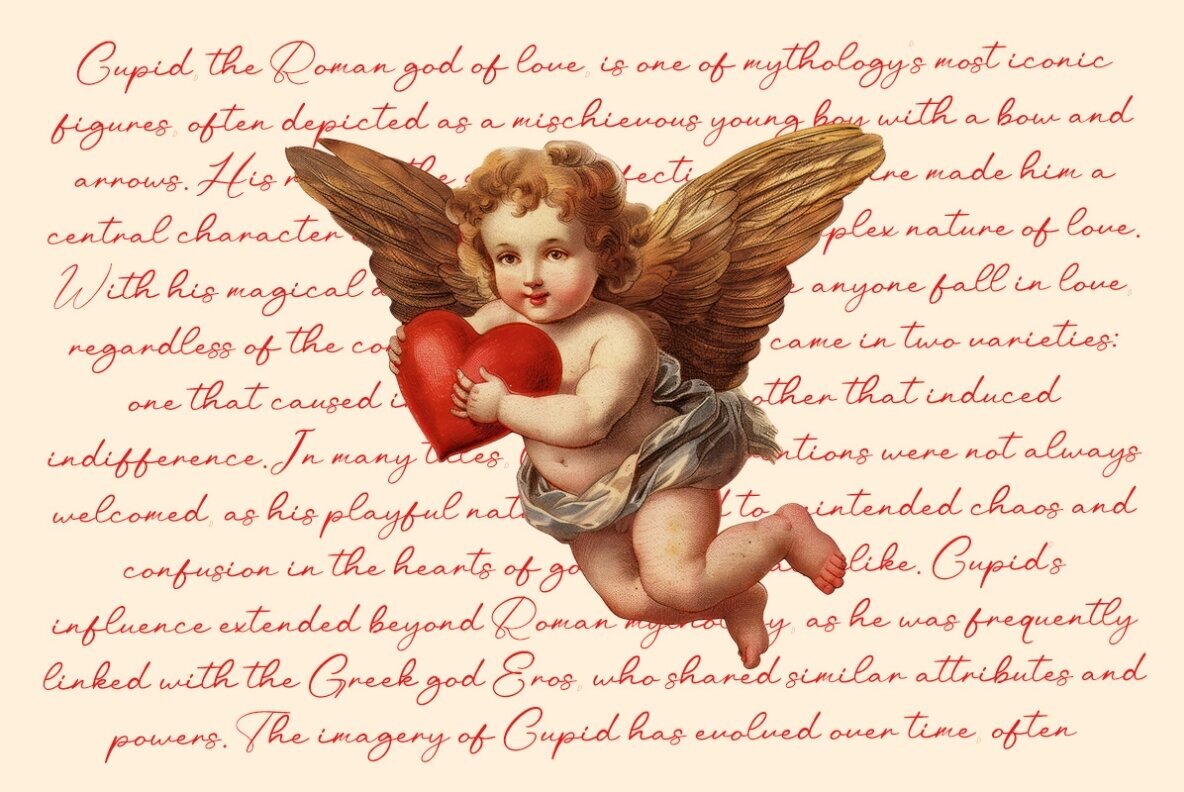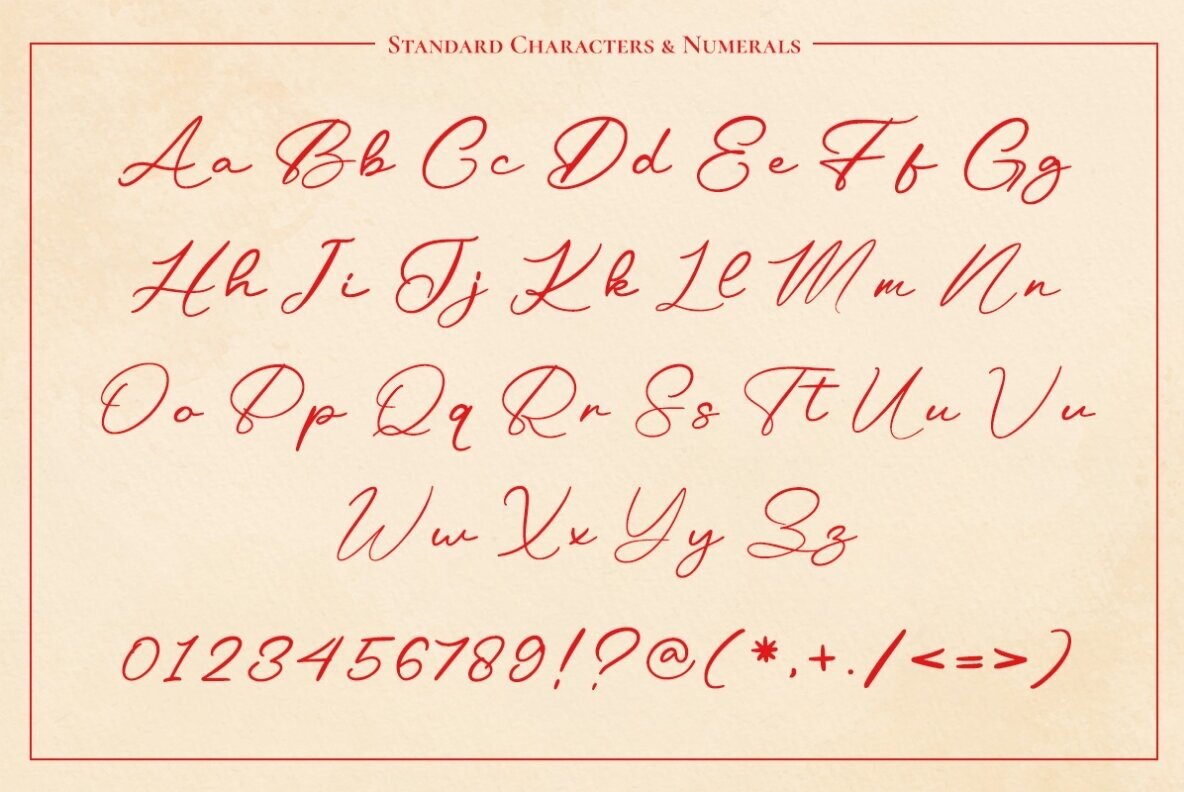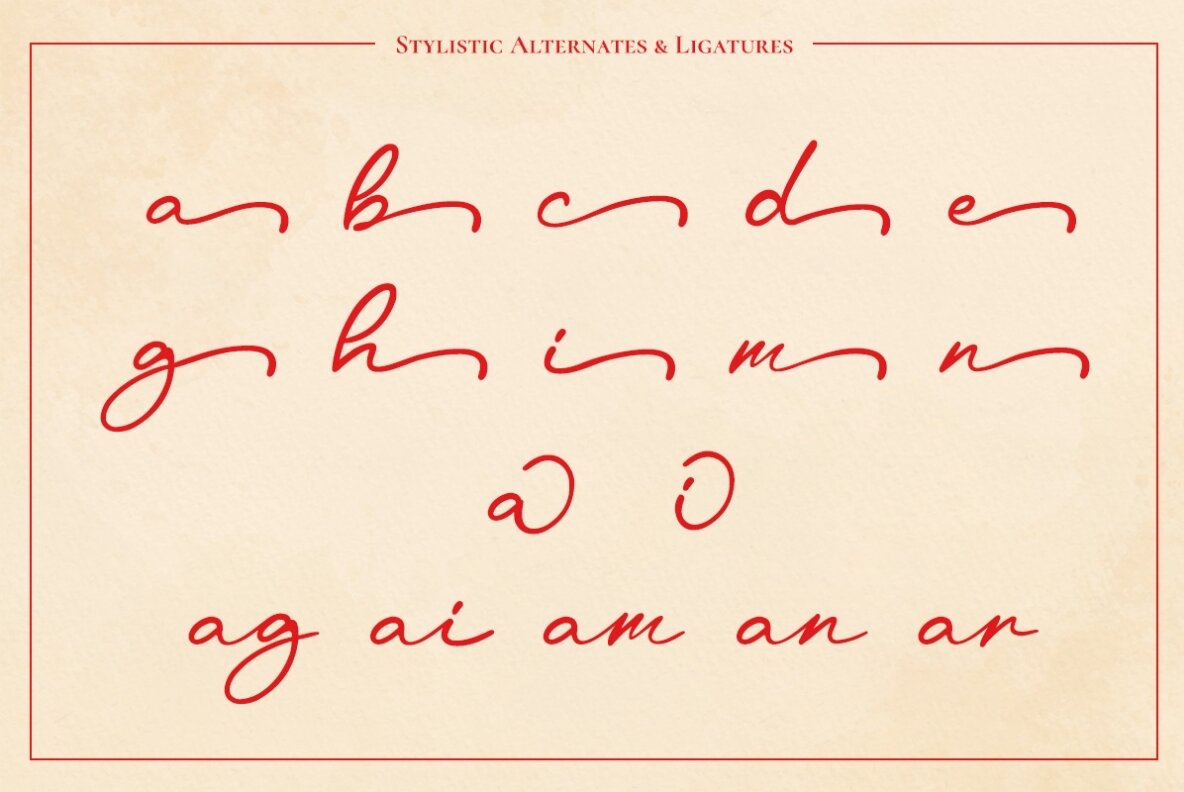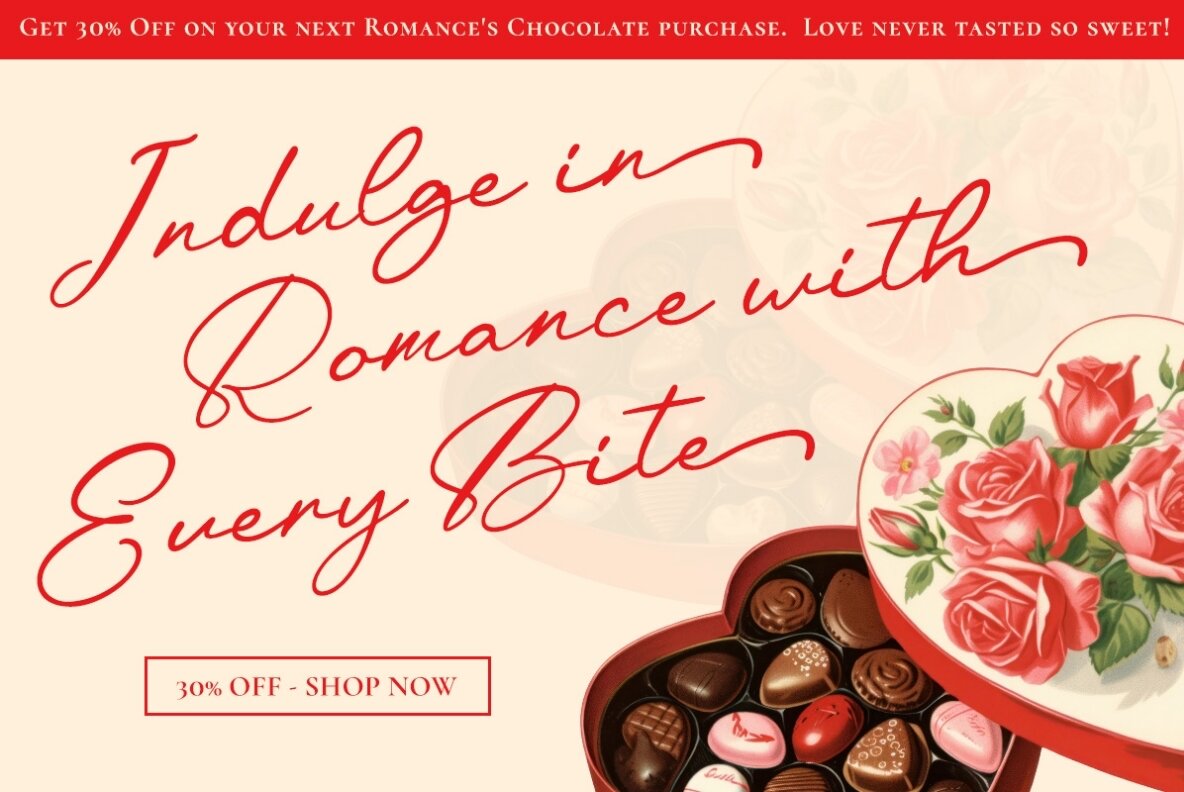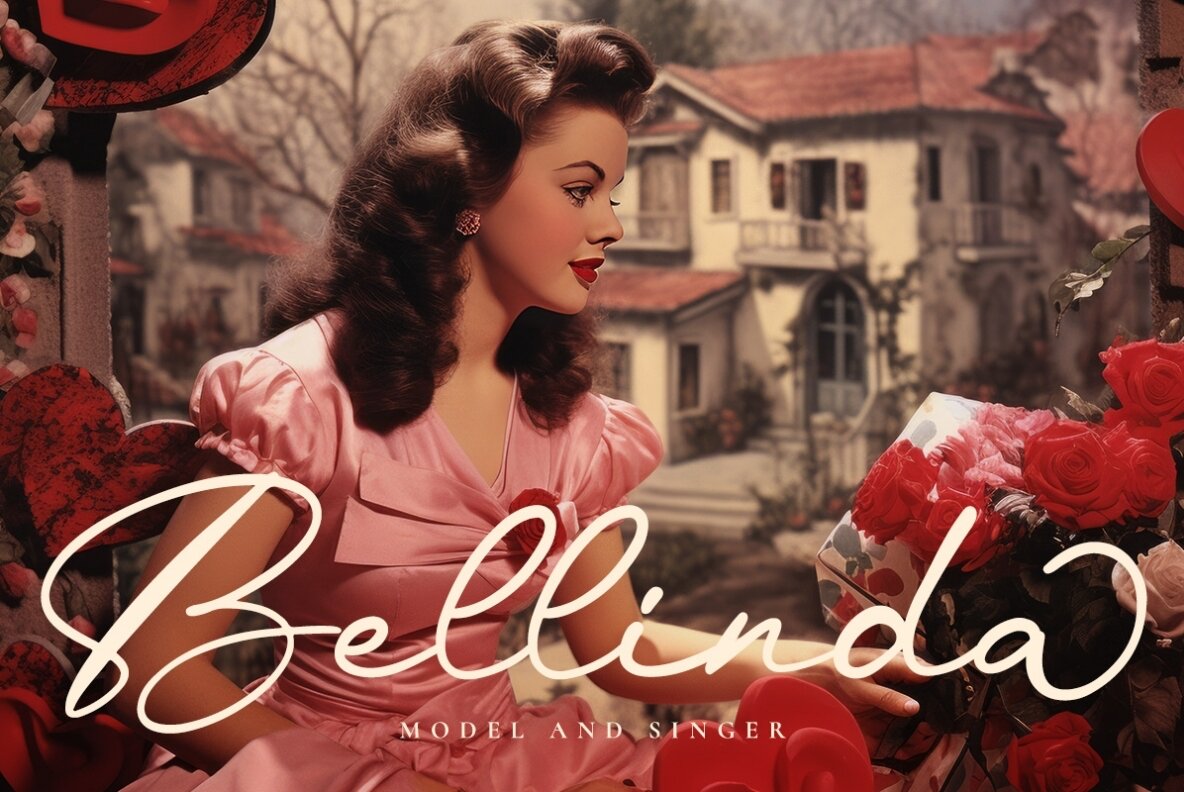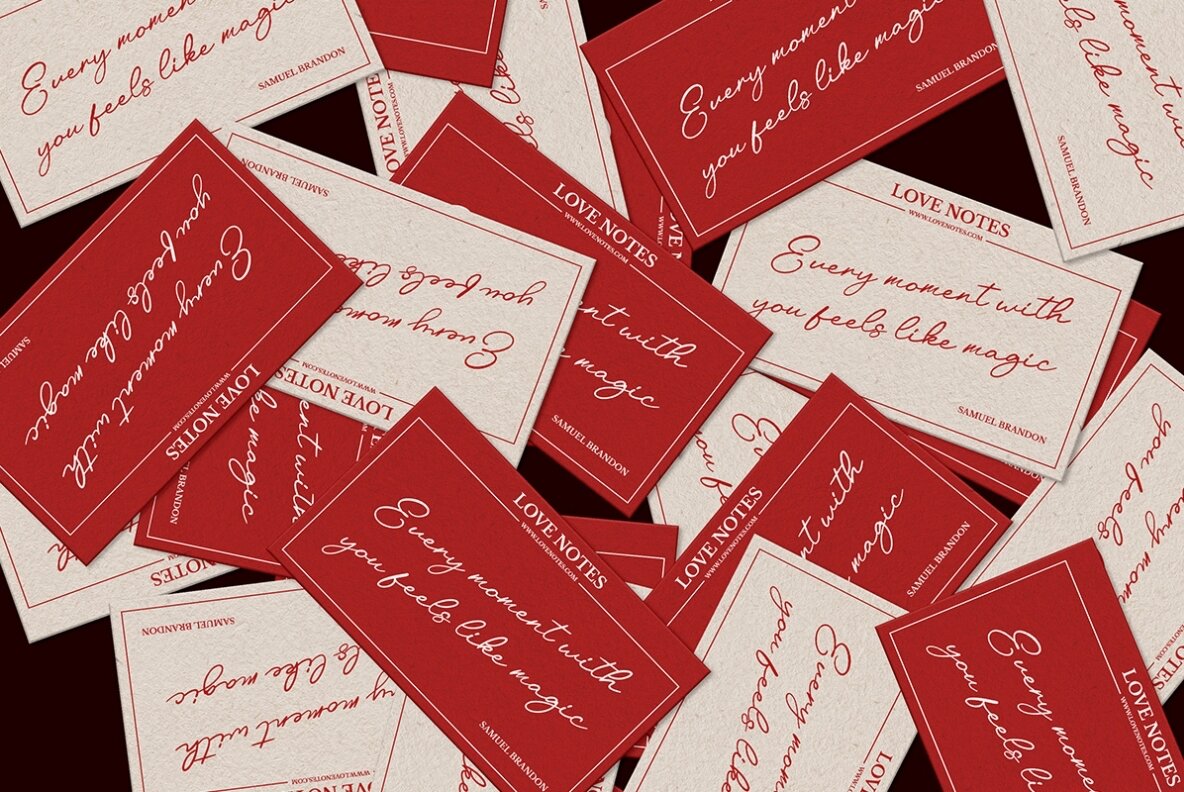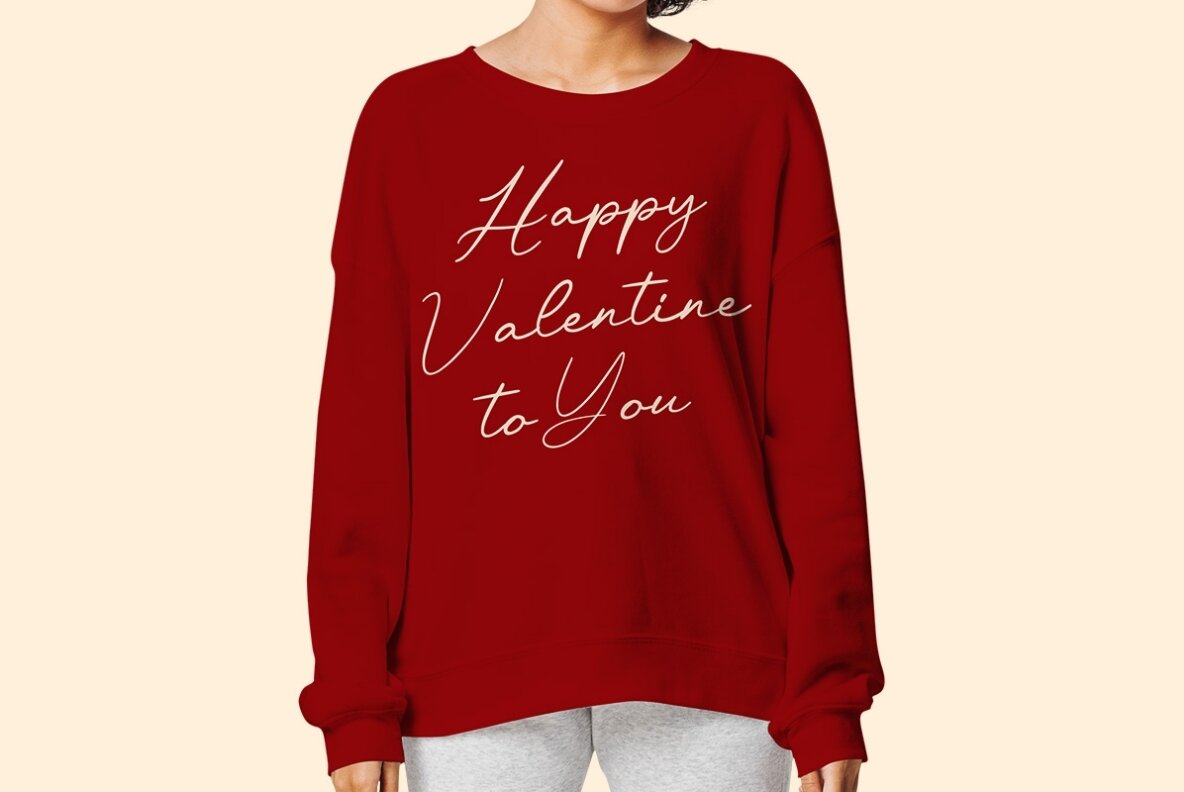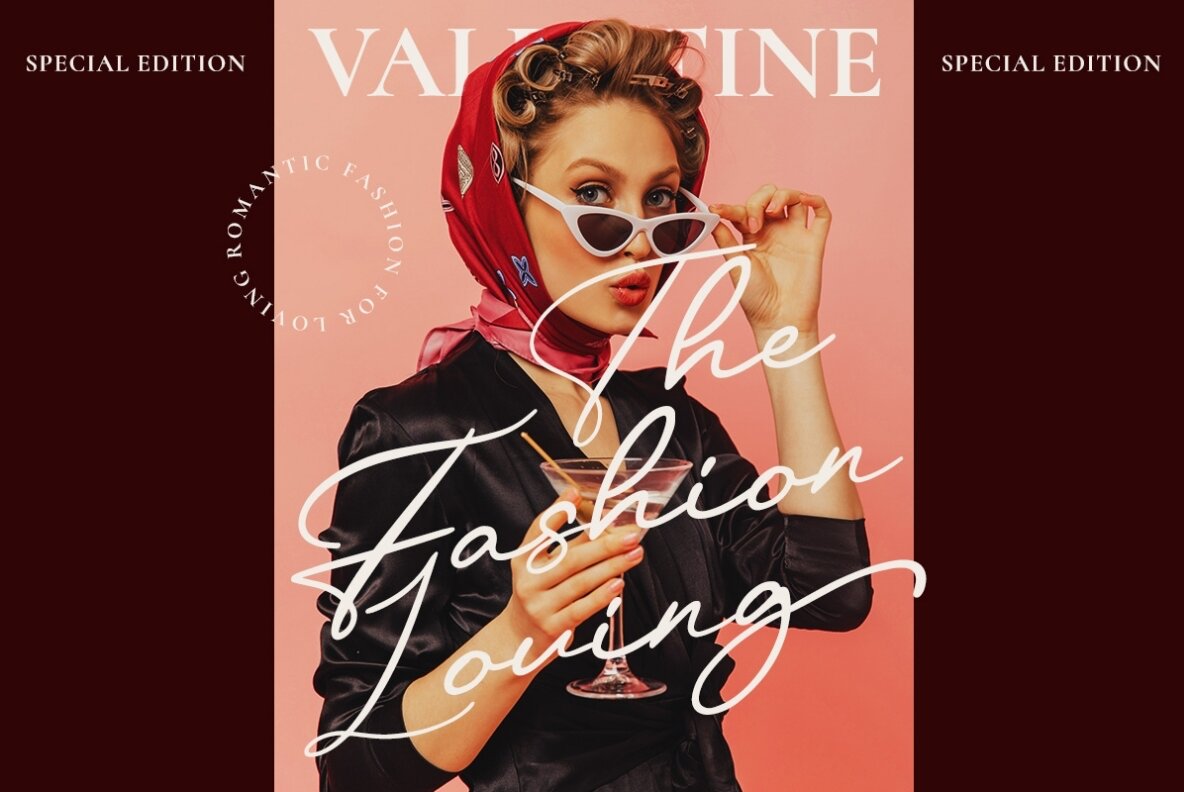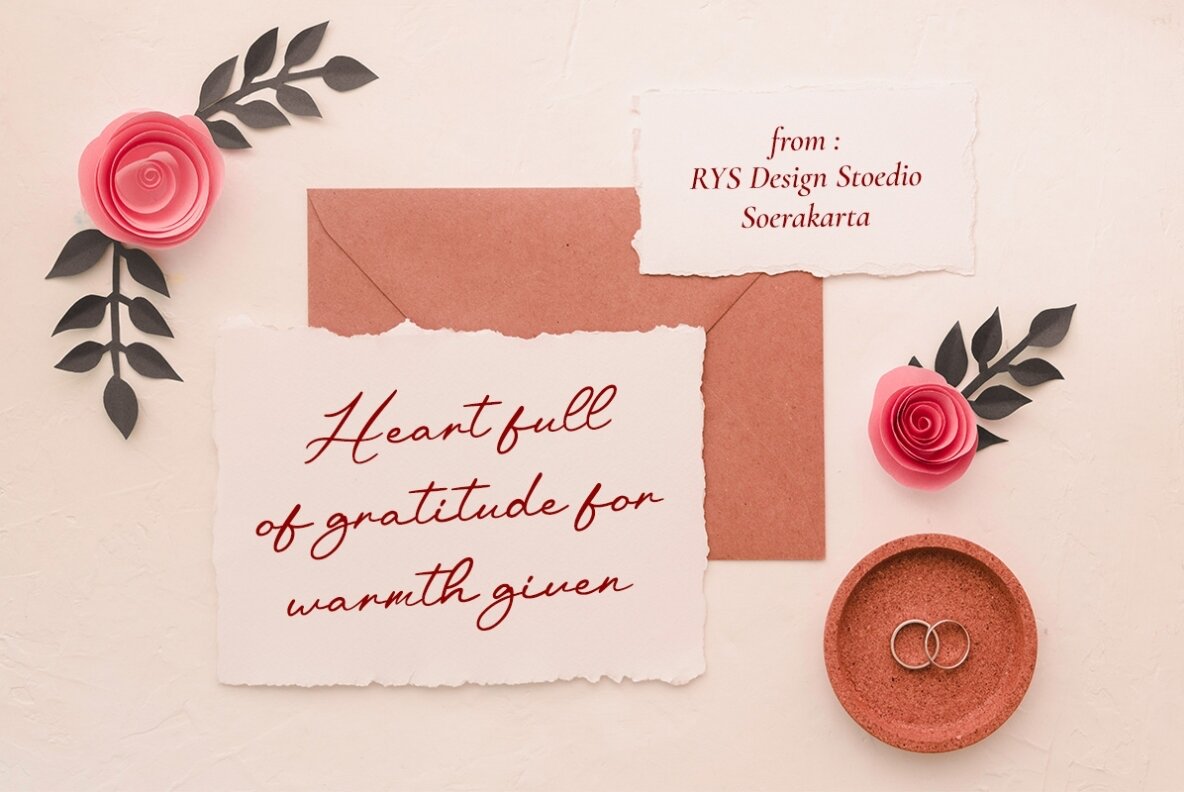
Everlin Font
RYS Everlin
Everlin is a captivating handwritten script font that embodies romance and elegance. Its natural and fluid style is ideal for a range of creative projects, such as logos, branding, wedding invitations, merchandise, Valentine's notes, signatures, and inspirational quotes. The font's graceful flow and vintage pen-like strokes convey timeless sophistication and heartfelt emotion.
This font's authentic handwritten charm makes it a perfect choice for designs requiring a personal touch. Use Everlin to add a romantic flair that leaves a lasting impression on your audience.